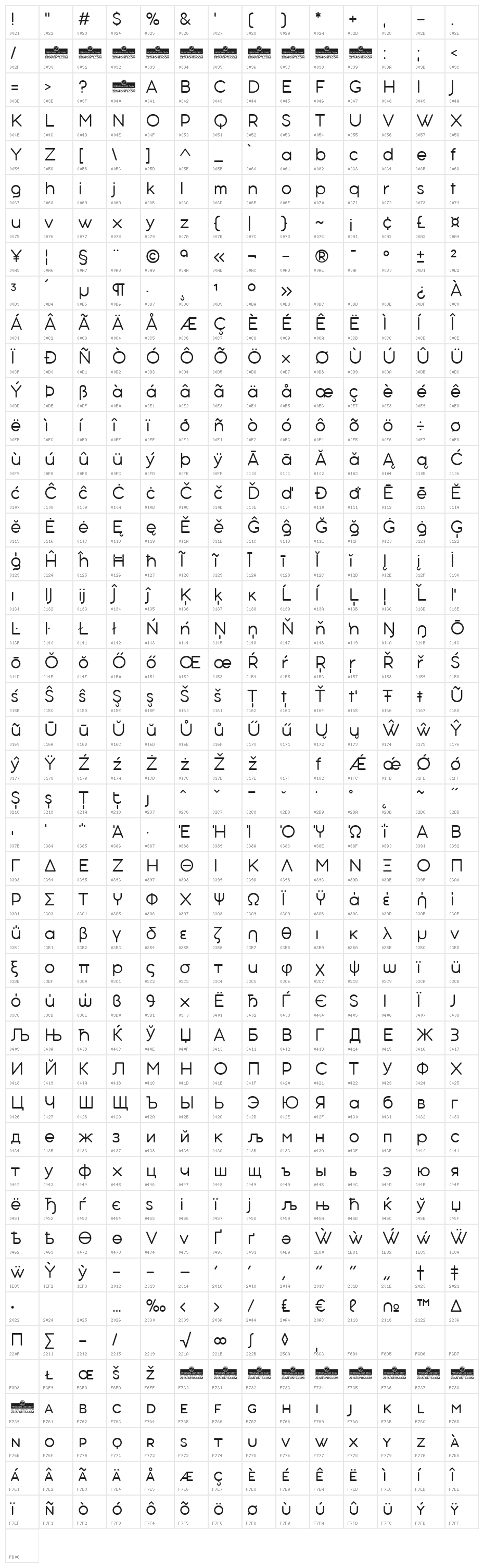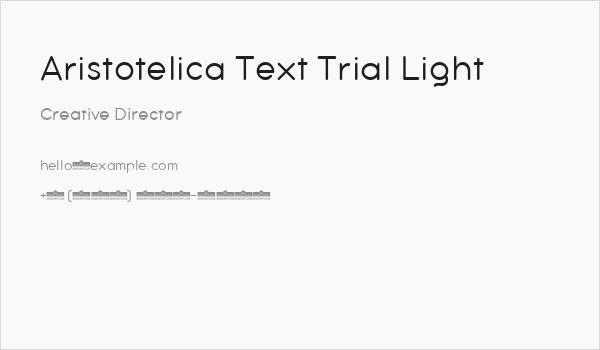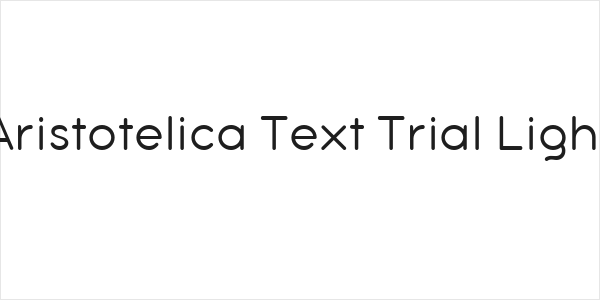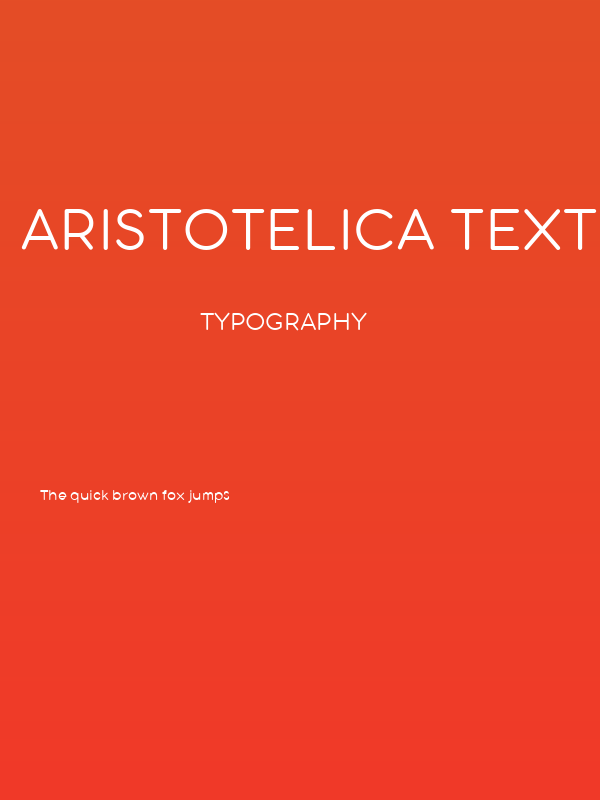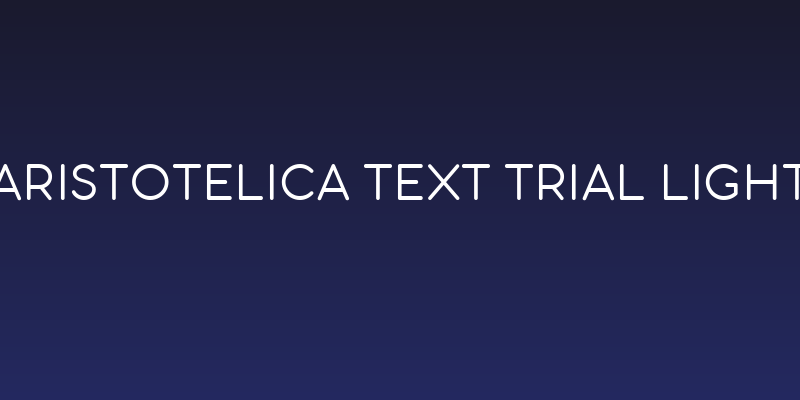
Aristotelica Text Trial Light Font
Aristotelica Text Trial Light Description
This font features a clean and modern sans-serif design with a light weight, offering a sleek and minimalistic appearance. The characters are well-proportioned with a consistent stroke width, providing a harmonious and balanced look. The rounded edges of the letters add a friendly and approachable feel, making it suitable for a wide range of applications. The font maintains excellent legibility across various sizes, ensuring readability in both print and digital formats. Its simplicity and elegance make it a versatile choice for contemporary design projects.